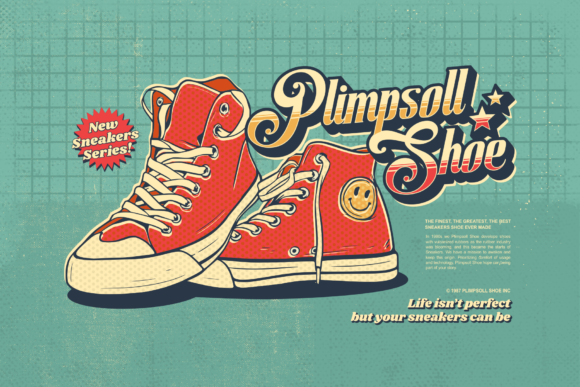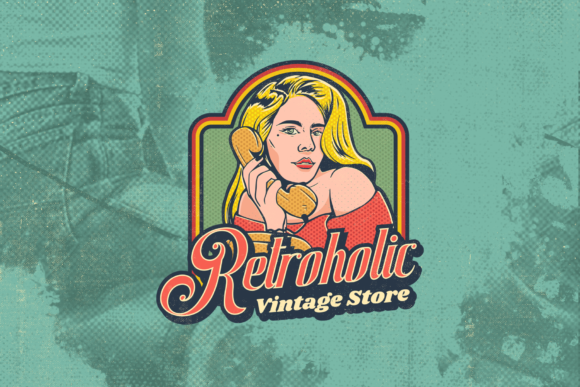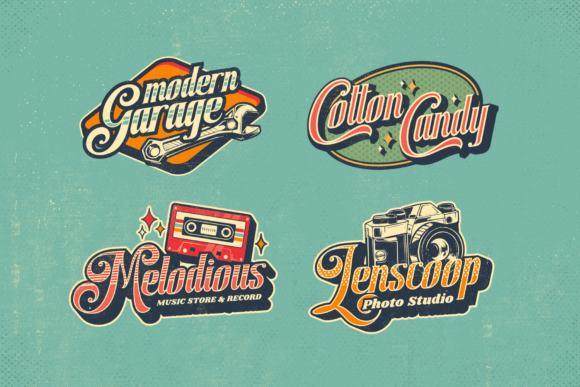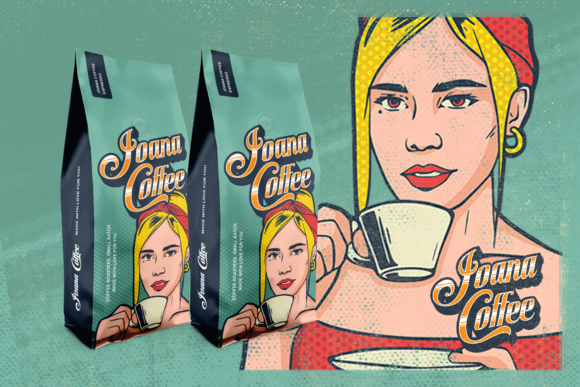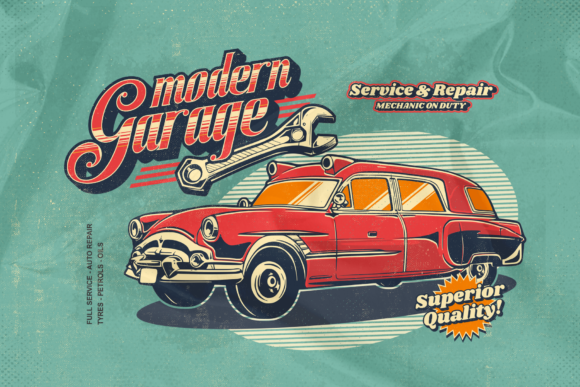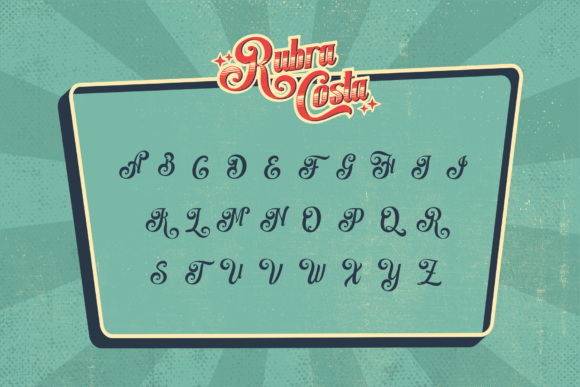
Introduction to Rubra Costa Font
As a designer, have you ever found yourself searching for the perfect font to give your project that extra oomph? The moment of inspiration hits, and you envision a bold, eye-catching headline that sets the tone for your entire design. For many creatives, that moment of inspiration is the key to unlocking a truly exceptional design.
One font that has been known to evoke that sense of excitement is the Rubra Costa Font. This vintage styled and thick lettered handwritten font is the perfect addition to any design project, adding a touch of nostalgia and sophistication to your work. Whether you’re working on a logo, advertisement, or website, the Rubra Costa Font is sure to make a statement.
Key Features of Rubra Costa Font
- High-quality design resource with a unique and creative style, perfect for a variety of projects.
- Transparent background allows for seamless integration into any design project, from digital to print.
- Includes a range of glyphs and characters, making it suitable for both Latin and Cyrillic languages.
- Designed to be highly legible, even at small font sizes, making it ideal for body text and titles.
- Perfect for creative projects, including branding, advertising, and editorial design.
Honest Review: Rubra Costa Font
I recently had the chance to work with the Rubra Costa Font, and I must say it’s a fantastic addition to any designer’s toolkit. One of the standout features of this font is its high quality and versatility. It’s perfect for creative projects where a unique and elegant touch is needed. ✨
However, I did notice a few limitations. The font’s range is relatively limited, making it less suitable for large-scale projects that require a wide range of font styles. Additionally, some characters may not be fully optimized for certain design software. ⚠️
Overall, I’m impressed with the Rubra Costa Font, and I would definitely recommend it for smaller-scale creative projects. Its unique design and free availability make it a valuable asset for designers. While it may not be perfect, it’s an excellent addition to any design resource library.
Tips for Getting the Most Out of Rubra Costa Font
For the best results, use Rubra Costa Font on a transparent background and experiment with different font sizes, colors, and styles to match your creative project’s tone and aesthetic.
Rubra Costa Font is suitable for a variety of creative projects, including:
- Editorial and publishing design
With its high-quality design and versatility, Rubra Costa Font is an excellent addition to any designer’s toolkit.